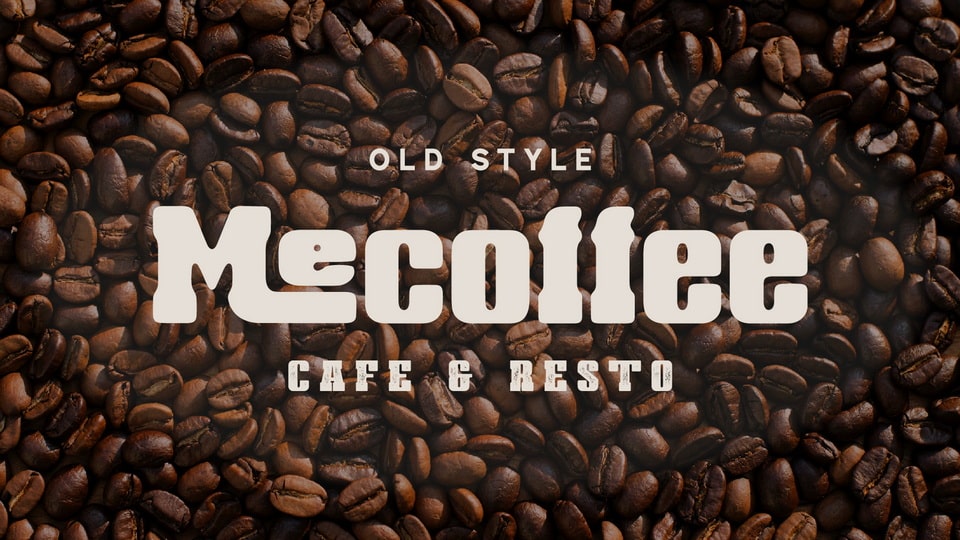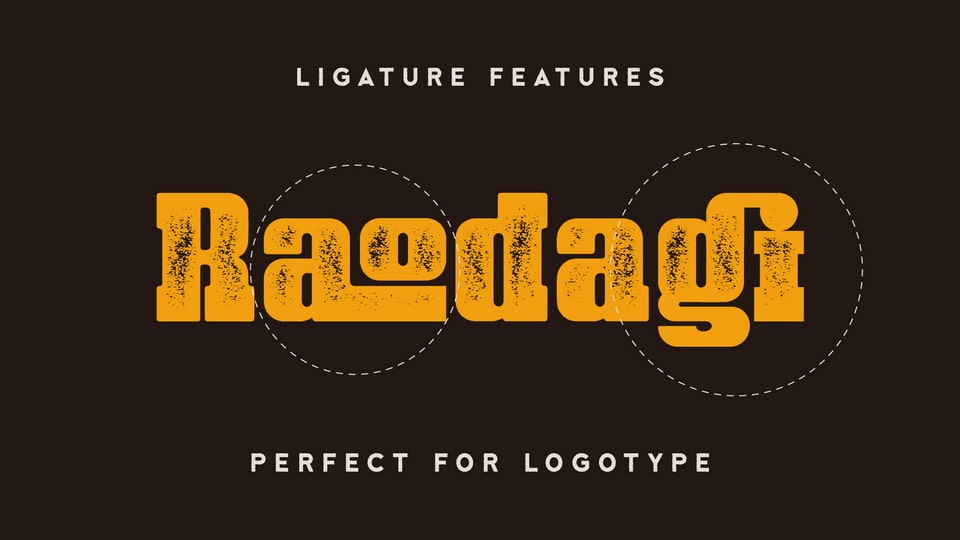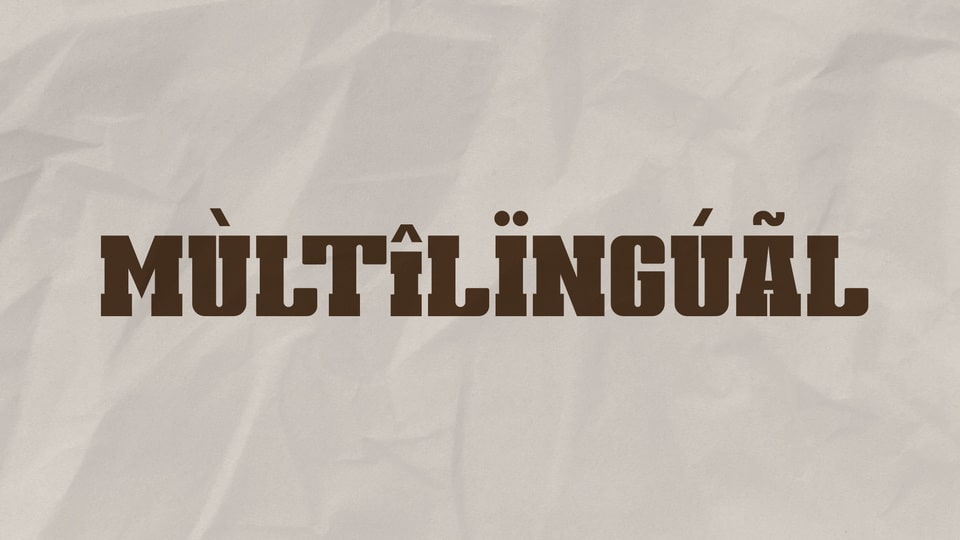
Rebaston Font Rebaston is a display serif typeface with 40 ligatures and comes with a stamp style, which makes it perfect for developing logos and meeting a variety of branding needs. Its special stamp style gives your design a unique and classic touch. DOWNLOAD BUY A LICENSE Facebook Twitter Pinterest VK Share by email Designed by: Salamahtype Website Support License: Free for personal use May 8, 2025 featured in Display By Fontesk